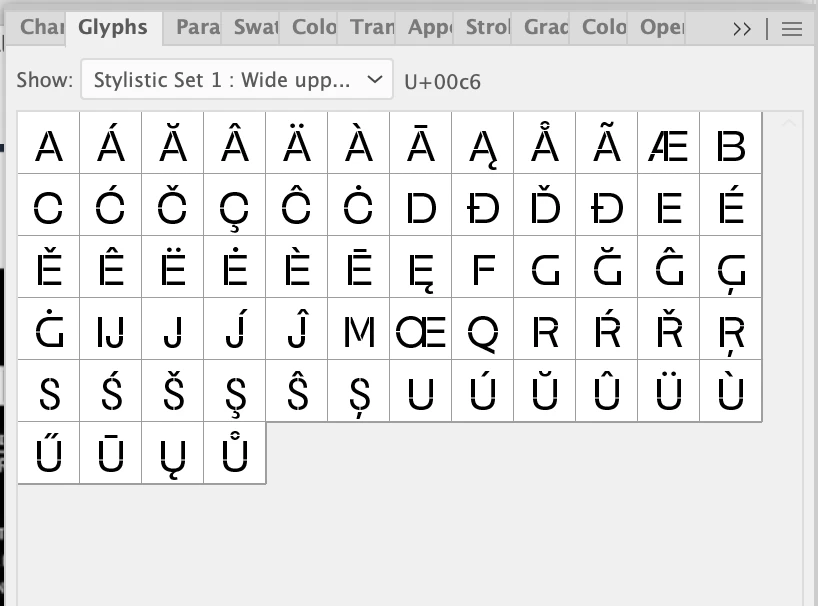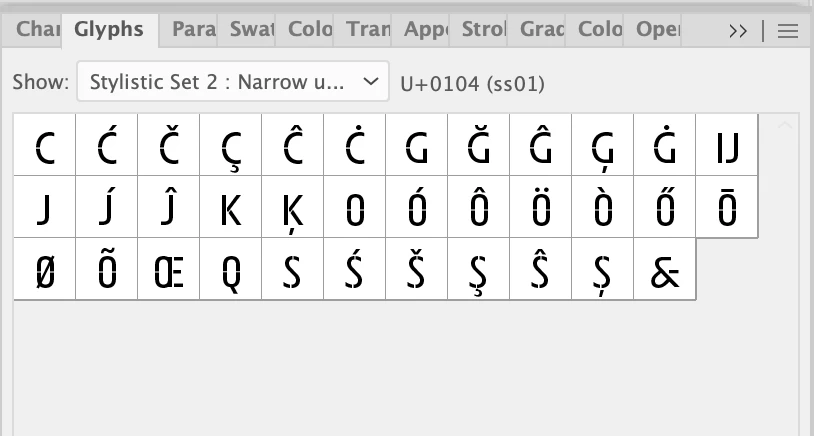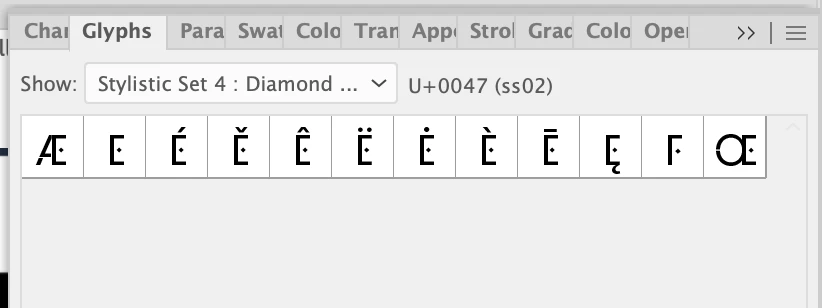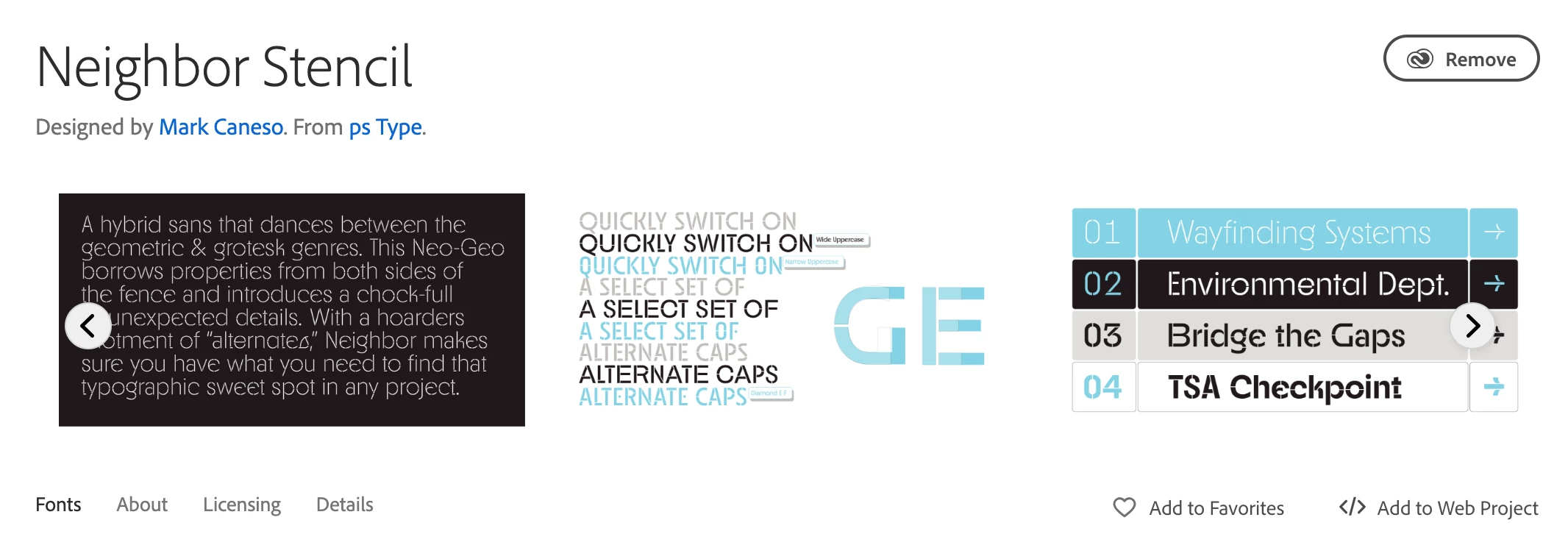
Are 90-percent of the alternates/glyphs for Neighbor Stencil font missing for only me - or for all?
In the Adobe Fonts, I activated the Neighbor Stencil family. In the description, it shows some really neat examples of wide upper case, narrow uppercase, diamond upper case, and many other alternate options. Had the designer not uploaded these samples, I would never have realized I'm not seeing all the glyphs for this marvelous enormous font family. I can only see wide for a few of the caps ... not all of them... same with narrow, diamond, etc. Anyone else have this problem, or am I just unlucky? Using in Illustrator. Thanks. (Wondering what other fonts have glyphs that I can't see!)   https://fonts.adobe.com/fonts/neighbor-stencil#fonts-section
I'm sorry, but I must be doing something wrong. Here's a screenshot of what I see when I look at the entire font's glyph offerings ... under the "W" there is no arrow or hidden option showing. I've seen those arrows, but I'm not seeing them in this font. What am I missing? Could I see a screenshot of what you see when you select a capital W please?
The little arrows are there in the lower right corner of many but not all of the glyph tiles in the Glyphs palette. The tiles that do have arrows have additional glyphs hidden under them in flyout menus. In the case of the "W" in the upright styles of Neighbor Stencil there are no alternates. But there is a swash "W" in the italic styles.
I attached two PNG images, one showing the Medium style and the other showing the Medium Italic style. In the first PNG image I clicked on the "A" to show the alternates nested under that tile. The second PNG image shows the alternate nested under the "W" tile. The PNG images of the glyph palettes are high in resolution; I screen-grabbed them from a 3840x2160 display. You can zoom in pretty tight to see the arrows in the lower right corner of the glyph tiles very clearly.
It's common for typefaces with expanded character sets to include certain kinds of alternate characters for some letters but not others.
The glyphs are all there (almost 800 per font file). They're just not as easy to find as they probably should be. Some of the options can be accessed via the Character palette. But the OpenType palette needs to be used to access certain other features, such as applying the various stylistic alternatives to strings of text.
Also, the 9 italic styles have certain options not found in the 9 upright styles, like swash alternates for the capital letters.
Sometimes I'll just open the Glyphs palette and scroll through it to insert specific characters into a text string. Even the Glyphs palette will have alternate letters hidden under other letters.
It's not odd looking. Sometimes the Glyphs palette will default to showing limited ranges of characters. A lot of the time I'll select "Entire Font" in the "Show" drop-down menu options. That usually shows a more complete picture of the font's complete character set, although even in that view some characters will be hidden under other characters as fly-out options. You have to look for the little arrow in the bottom corner of the glyph tile and click on it to have the other alternate characters become visible.